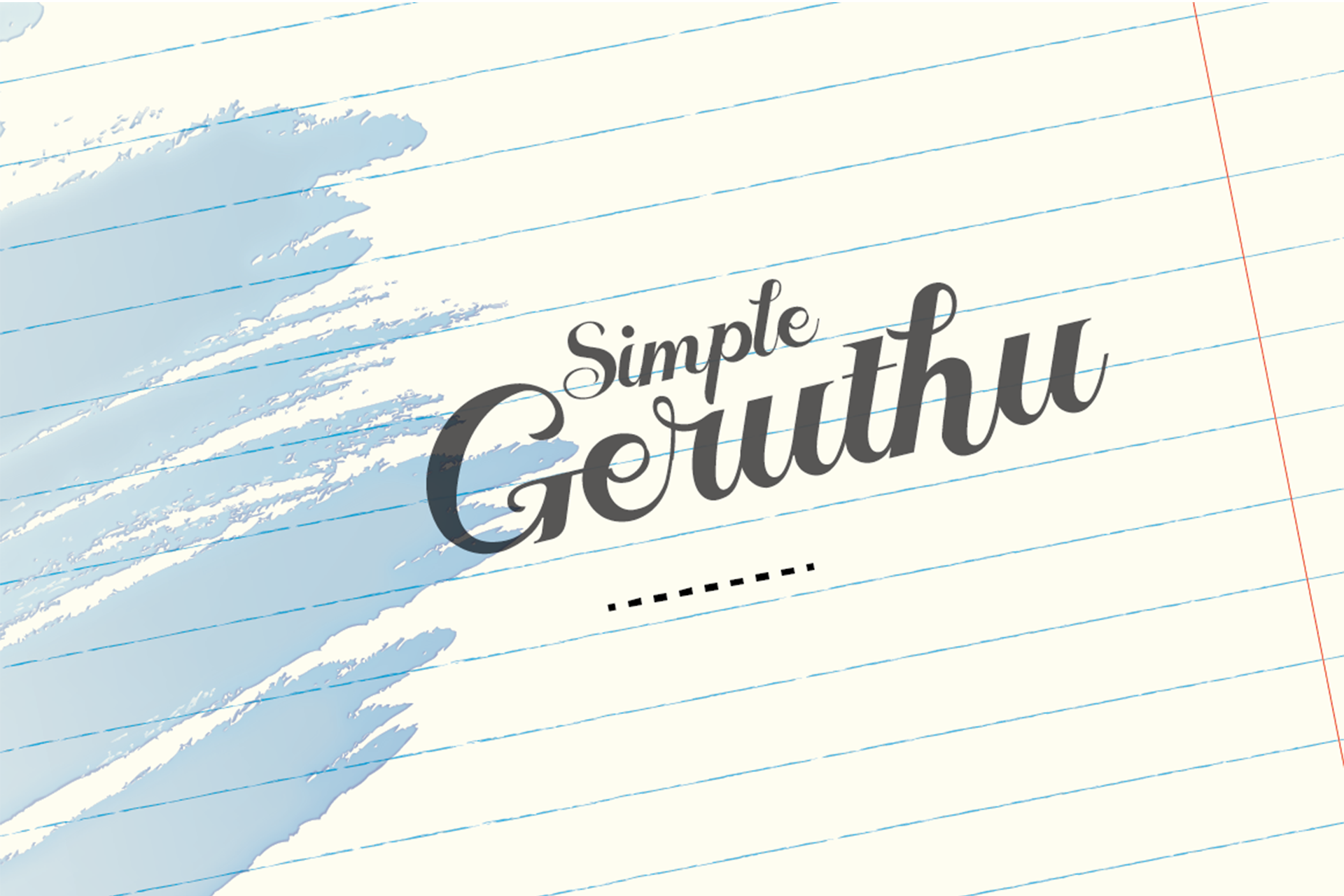
Simple Geruthu Script Font
This is a modern Display typeface with beauty in every single letter. It contains Uppercase and Lowercase character set !! GERUTHU allows you to create beautiful headlines, logos and titles in just minutes